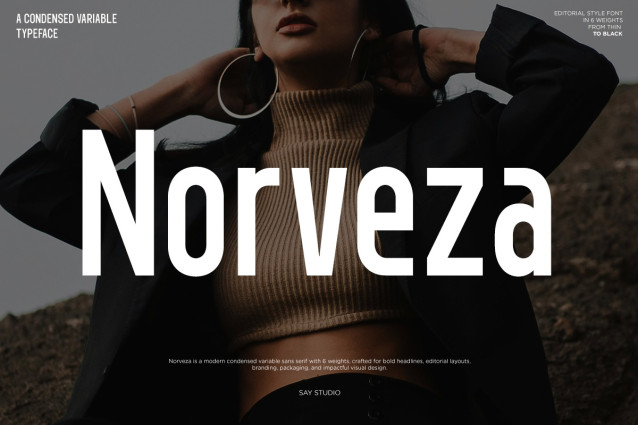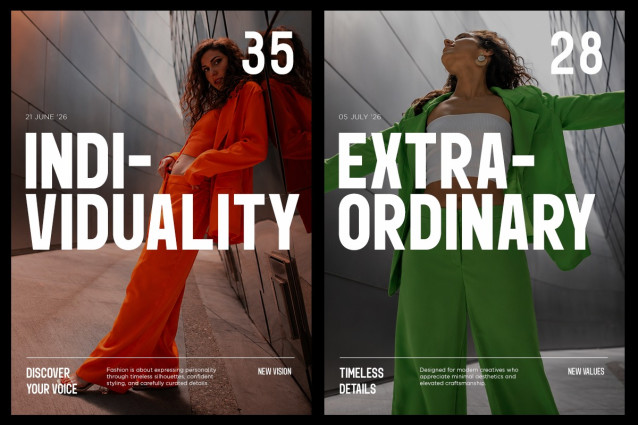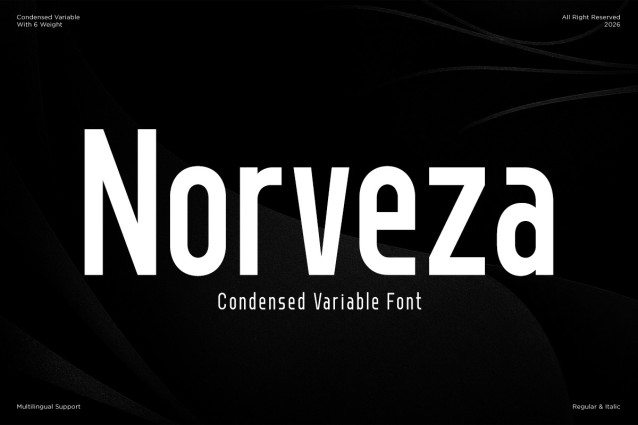
Norveza – Family Condensed Sans Serif Font
Norveza is a modern condensed sans serif font family crafted for bold headlines, impactful branding, and contemporary editorial design. Featuring a clean geometric structure with powerful proportions, it delivers excellent readability while maintaining a strong visual presence. The family includes multiple weights from Thin to Black, plus matching italics, making it highly versatile for professional design projects.